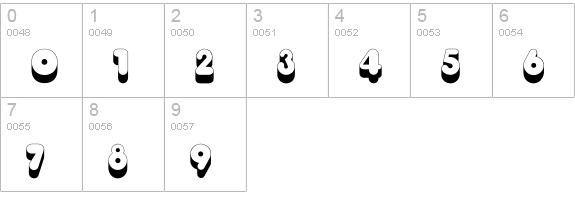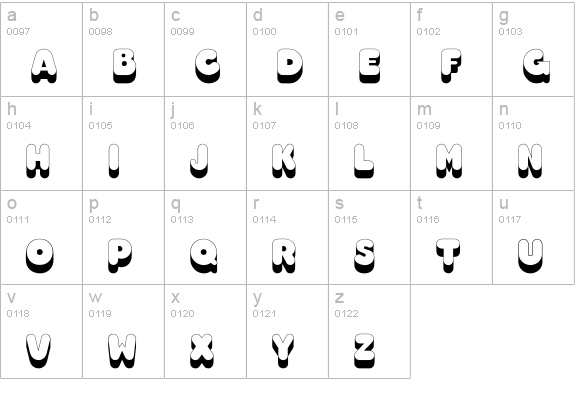
TooMuchShadow Font Details
Introducing TooMuchShadow, a captivating and visually striking font that effortlessly adds depth and dimension to your designs. With its unique and intricate shadowed letterforms, this font is sure to leave a lasting impression on your audience. TooMuchShadow is the perfect choice for projects that require a touch of elegance and sophistication. Whether you're designing a logo, creating eye-catching posters, or crafting stylish invitations, this font will elevate your work to new heights. What sets TooMuchShadow apart is not only its stunning aesthetics but also its versatility. It seamlessly blends into various design styles, making it suitable for a wide range of creative endeavors. From contemporary and modern to vintage and retro, this font adapts effortlessly to any theme or concept. But what makes TooMuchShadow truly exceptional is the fact that it is free. Yes, you read that right – this extraordinary font is freely available to download at FontsMarket.com. Now you can harness the power of this exquisite typeface without breaking the bank. It's a rare opportunity to enhance your designs with a high-quality font without any cost attached. Whether you're a professional designer or a passionate hobbyist, TooMuchShadow is a must-have addition to your font collection. Its impeccable craftsmanship, attention to detail, and the ease of use make it a valuable asset for all your creative endeavors. So why wait? Unlock the potential of your designs with TooMuchShadow – a font that effortlessly combines elegance, versatility, and affordability. Download it for free at FontsMarket.com and elevate your creative projects to a whole new level of excellence.